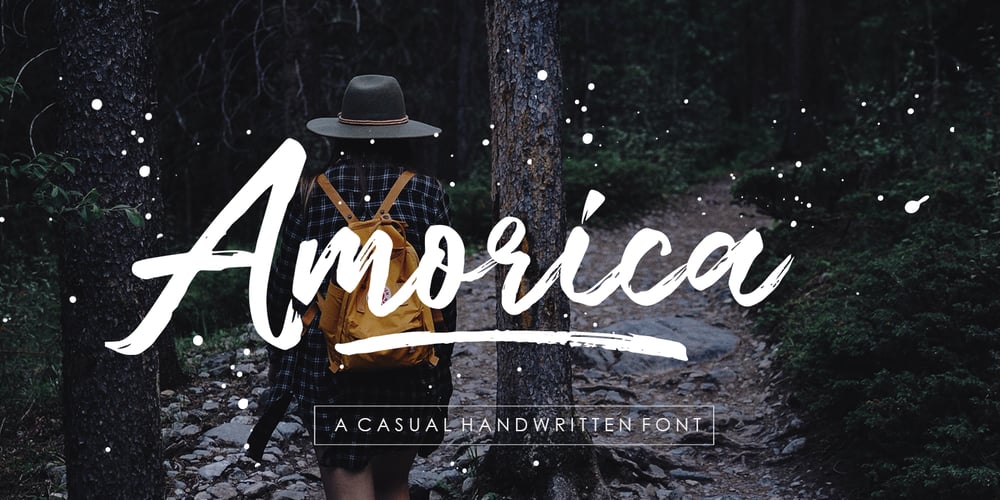
Amorica Script
Amorica Script Font Family was designed by Naufal Paramata and published by Youngtype. Amorica Script contains 1 styles and family package options. Amorica Script was created with brush and ink and has a bold and irregular baseline. It contains a complete set of lowercase, uppercase, alternates, ligatures, punctuation, numbers, and multilingual support. Get some inspiration from the preview above to create awesome designs. Amorica Script is ideal for blog headers, posters, wedding elements, t-shirts, apparel, book covers, business cards, greeting cards, branding, merchandise, invitations, handmade quotes and more. How to access all alternative characters, using Windows Character Map with Photoshop: https://www.youtube.com/watch?v=Go9vacoYmBw How to access all alternative characters using Adobe Illustrator: https://www.youtube.com/watch?v=XzwjMkbB-wQ Thank you!